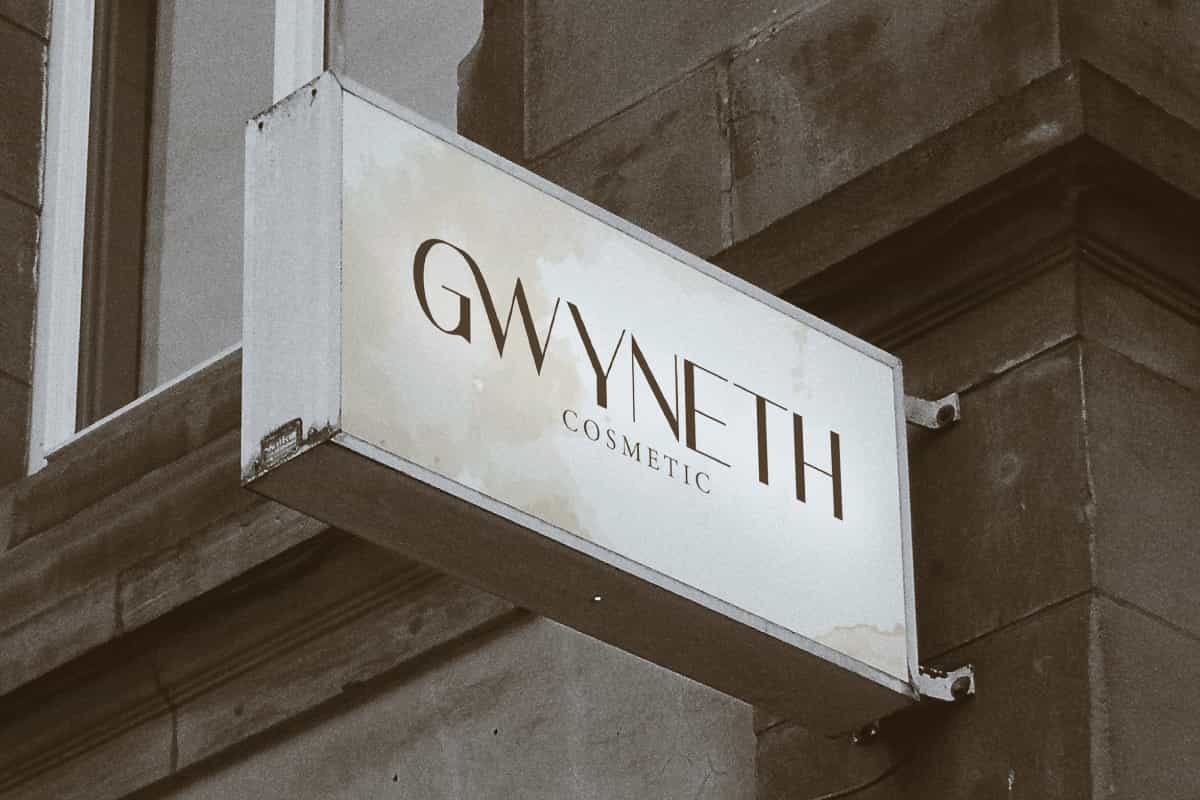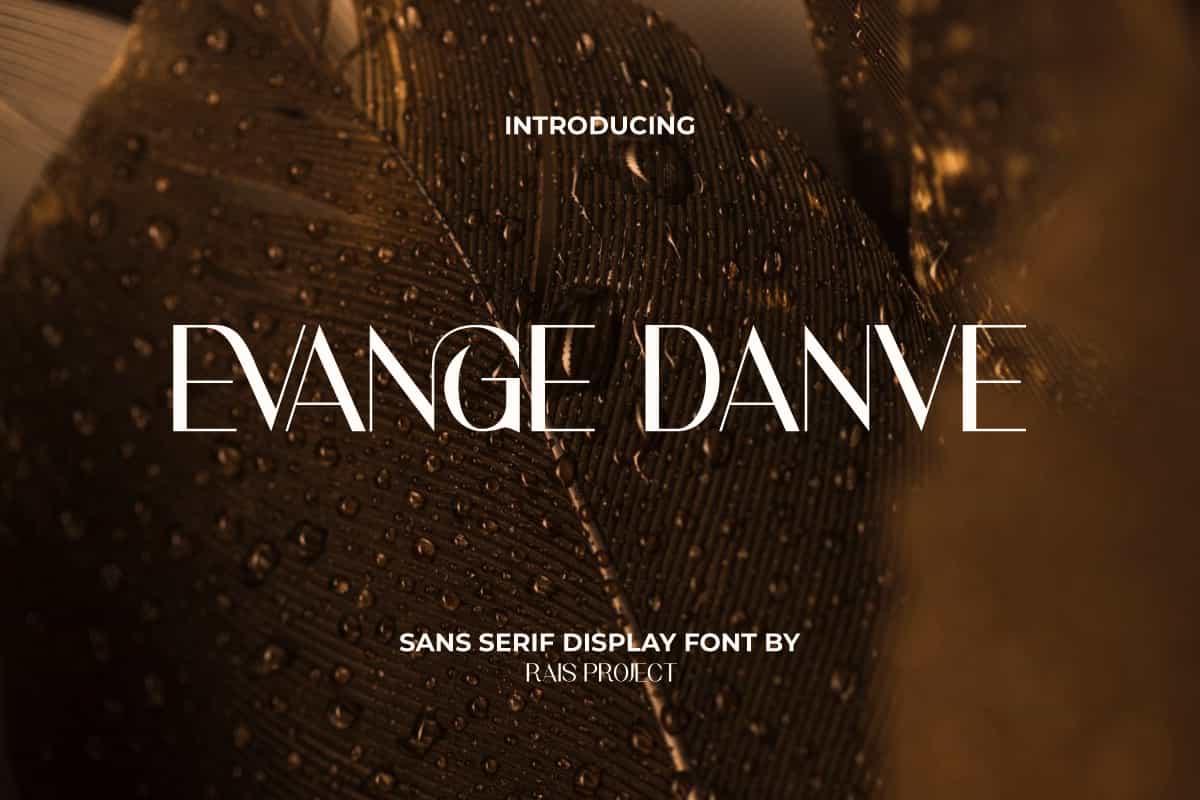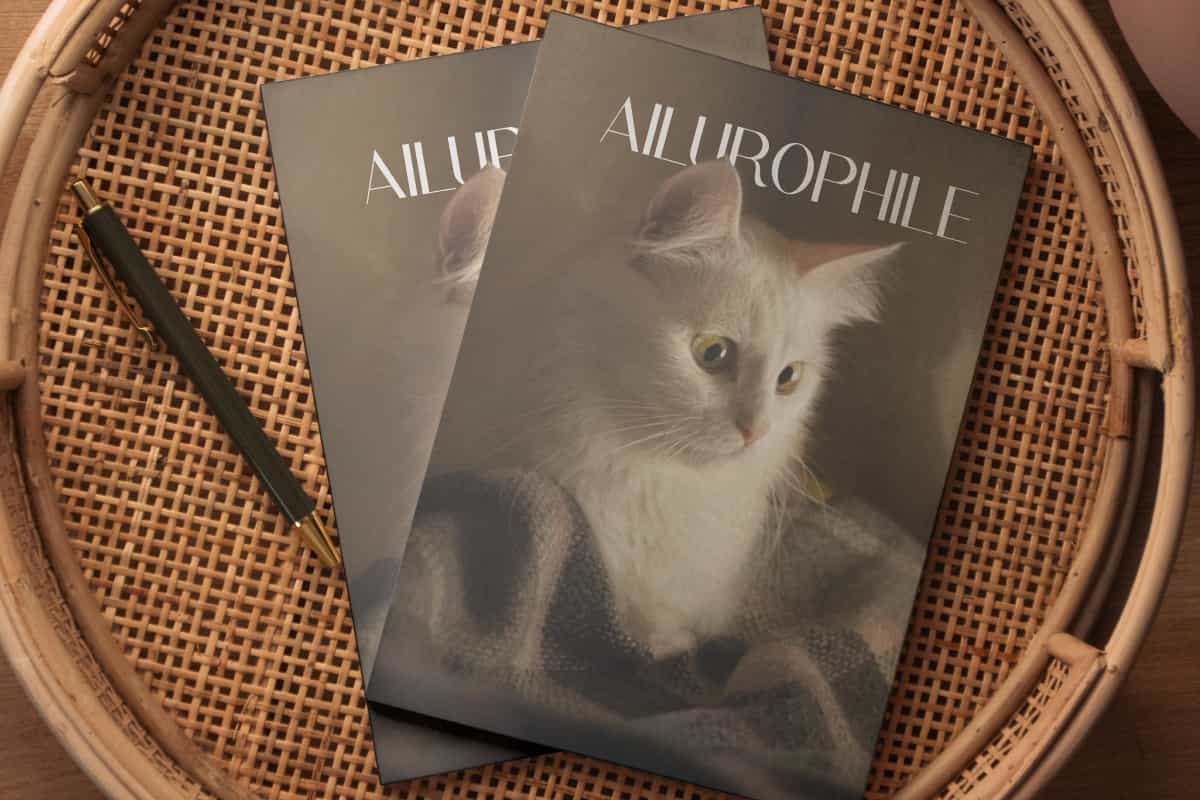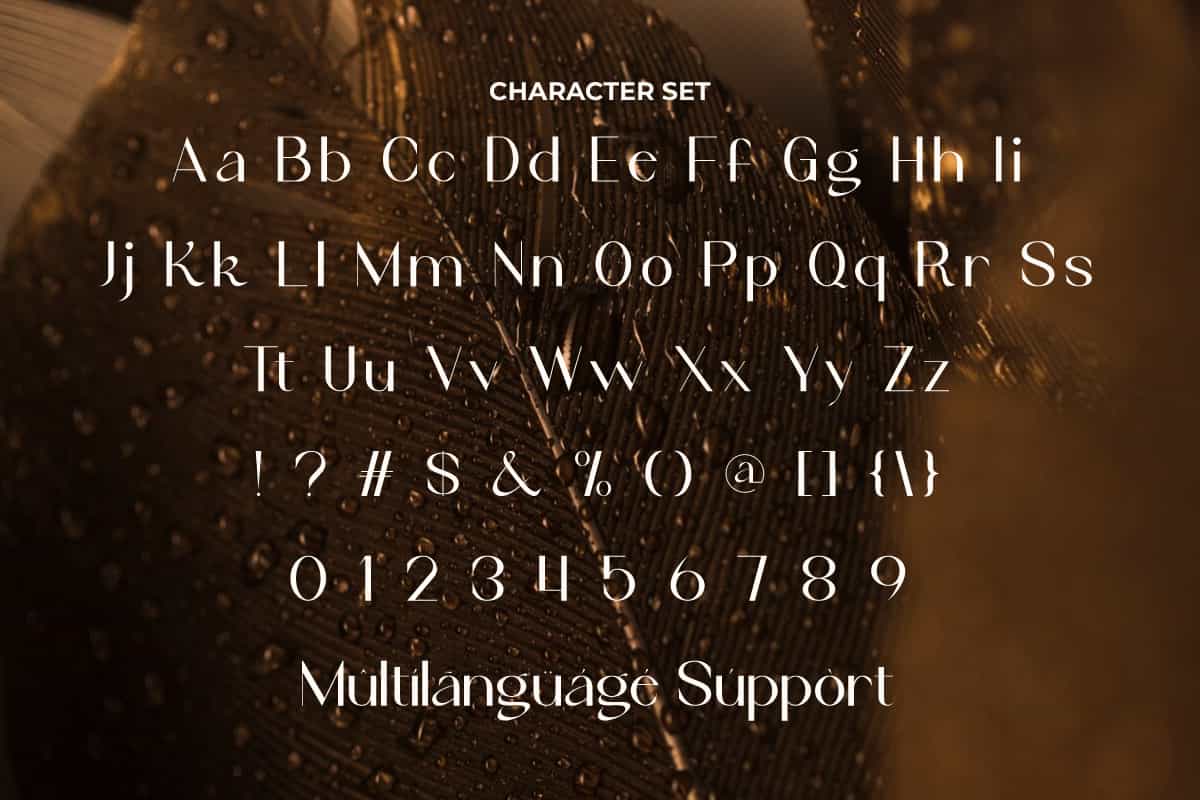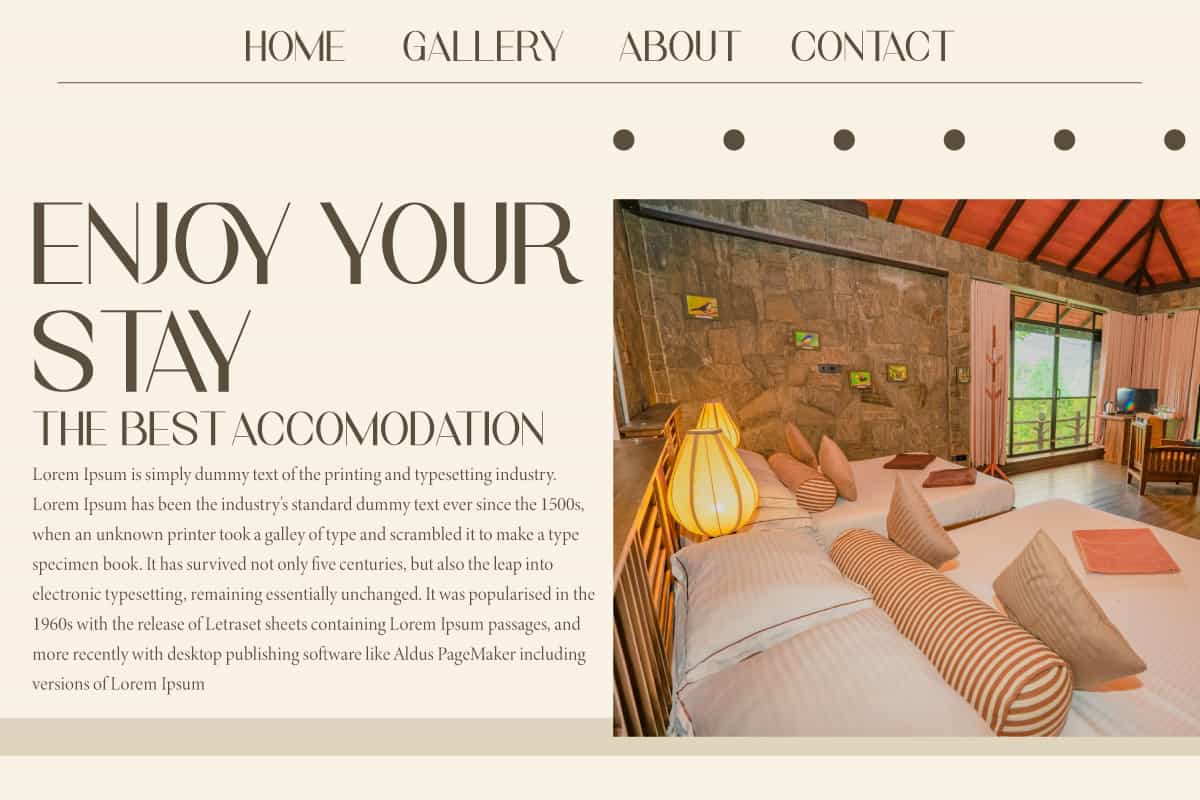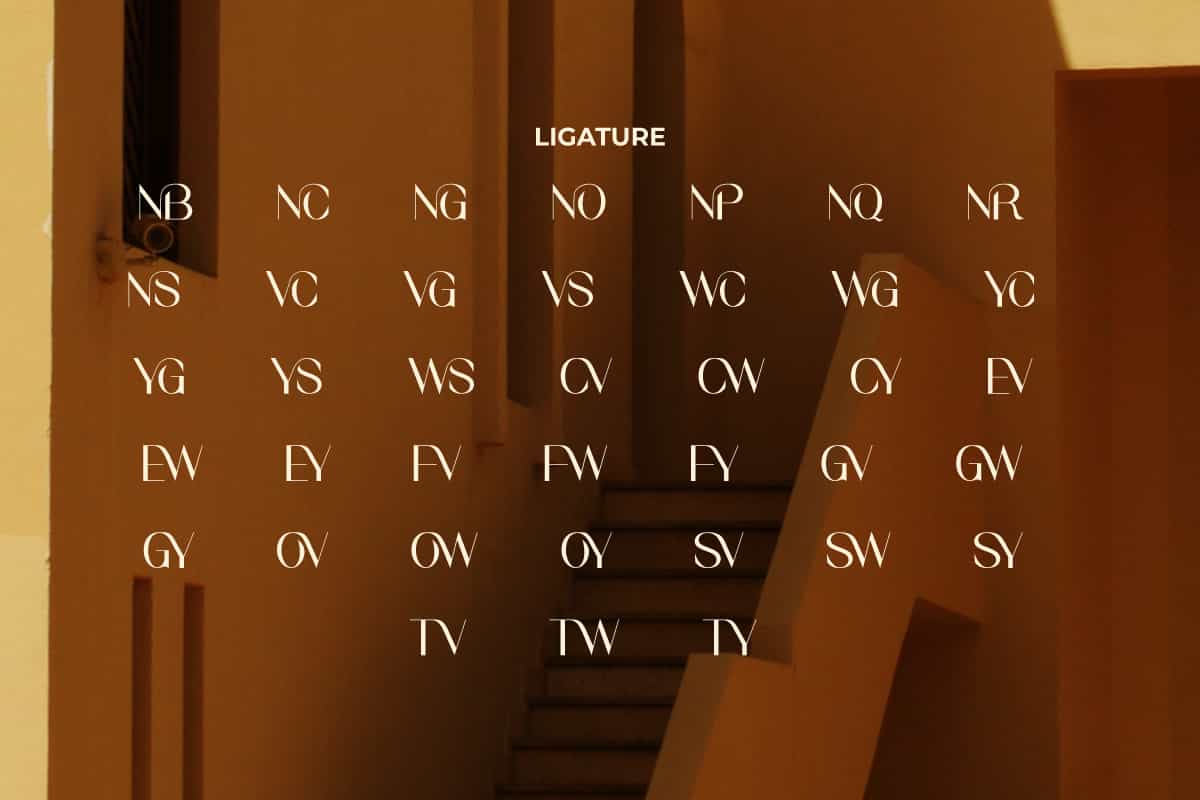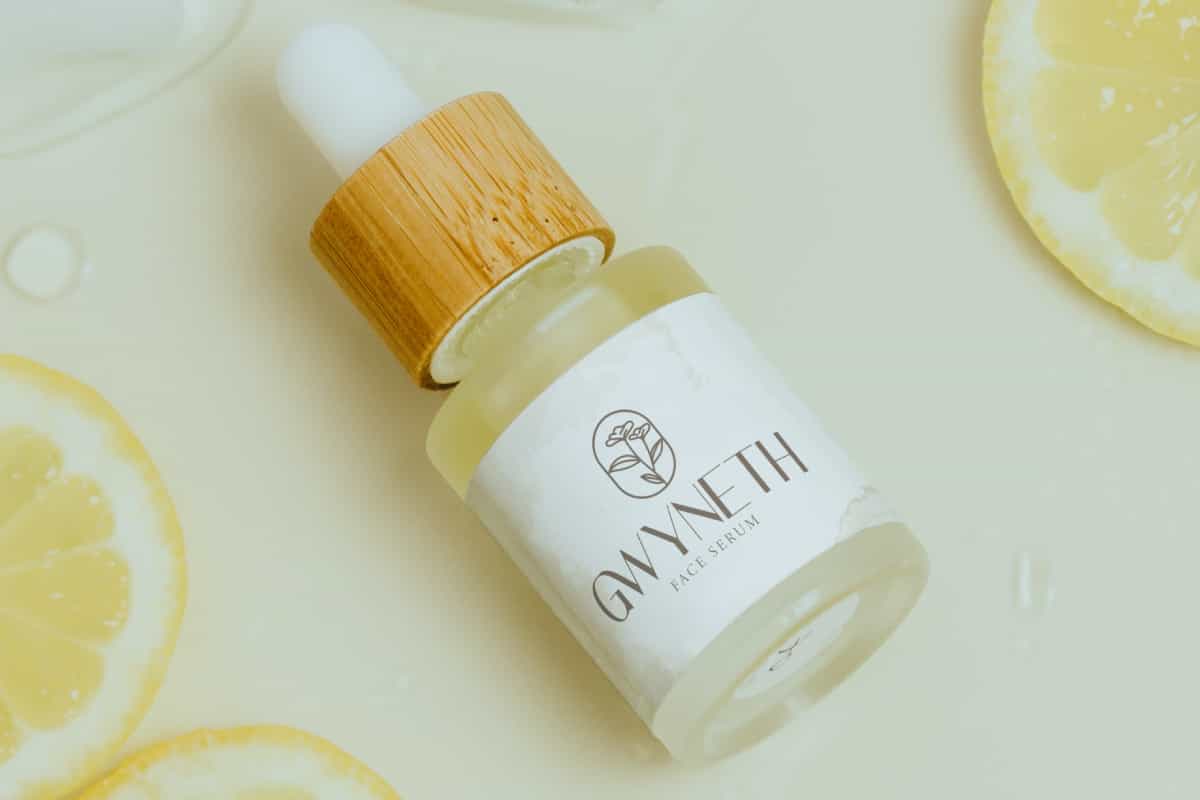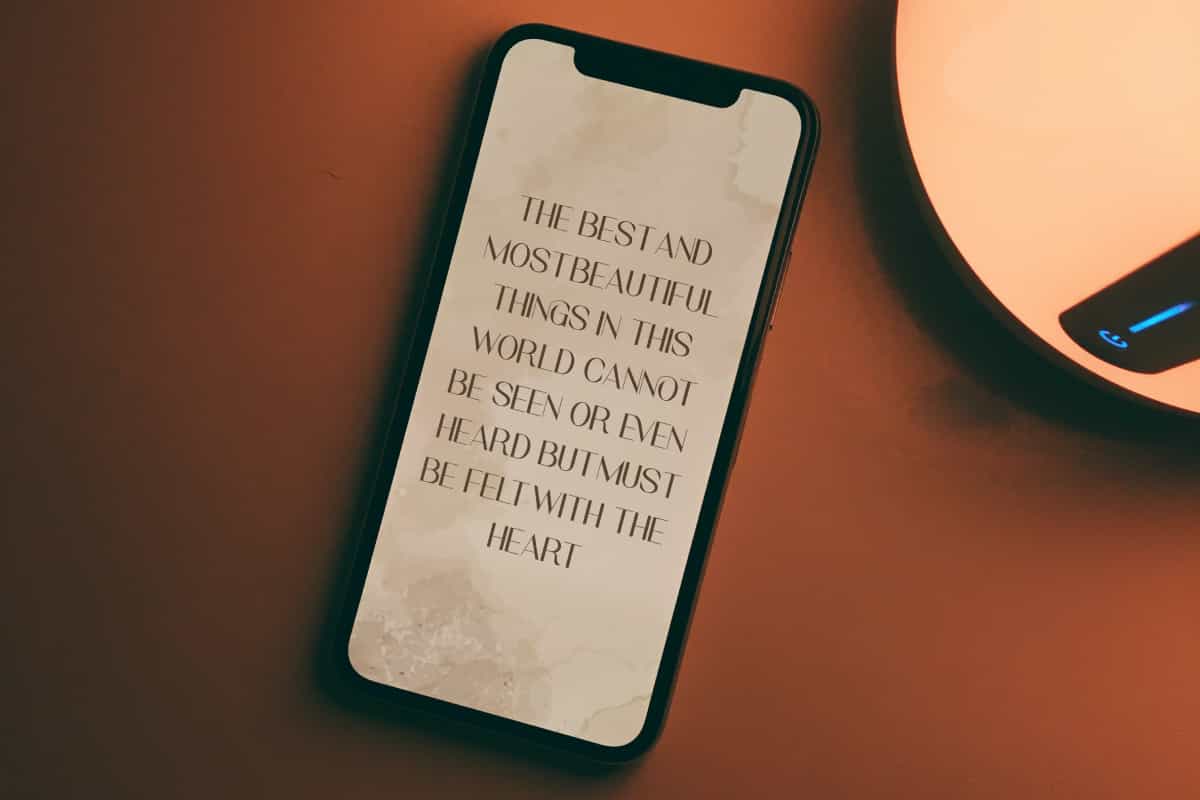
Evange Danve Font
Evange Danve Font is an elegant sophisticated stylish sans serif font that will make your designs looks exclusive!
Evange Danve Font is an elegant sophisticated stylish sans serif display font created by RaisProject. This font has a clean and luxurious look so it can be paired with other types of fonts. It will be good for any designs, such as signage, invitation, brand image, cover, custom design, label, poster, product packaging, quotes, stationery, web, and more!
Evange Danve Font includes a full set of Uppercase and Lowercase Letters, Numerals, Punctuation, Symbol, and Ligature character. This modern font will be suitable for various industries, such as fashion, accessories and jewelry, advertisement, event or wedding organizer, florist, homeware, perfume, photography, printing, publishing, real estate, etc.